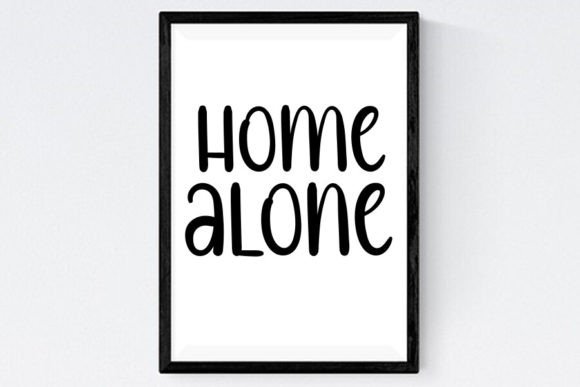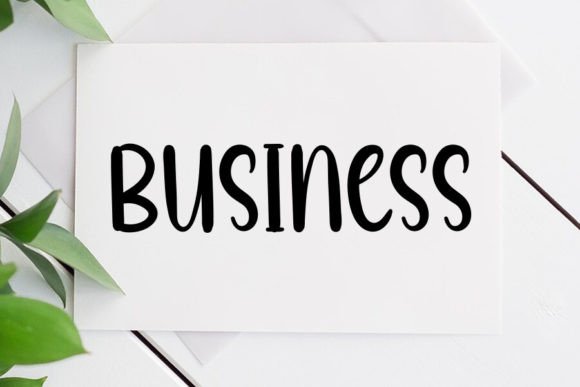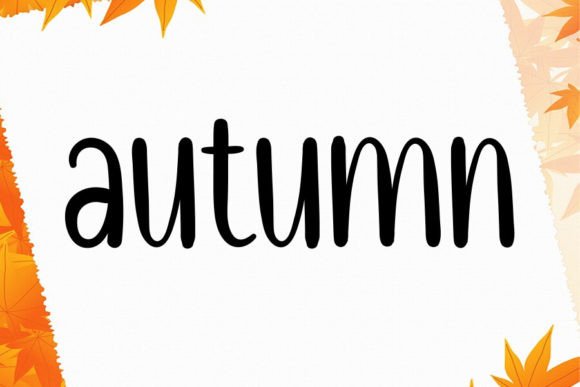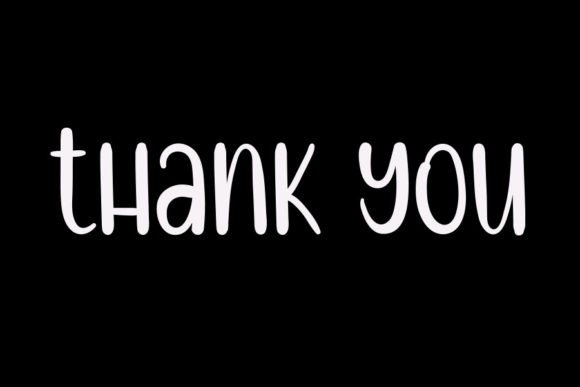
Introducing Angry Birds Font: Elevate Your Designs with Timeless Elegance
Are you tired of using generic fonts that lack personality and sophistication? Look no further than Angry Birds Font, a trendy handwritten font that brings a touch of classic calligraphy to your design projects. With its contemporary atmosphere and impeccable form, Angry Birds Font is the perfect choice for designers and crafters seeking to add elegance and class to their creations.
The Inspiration Behind Angry Birds Font
Angry Birds Font draws inspiration from timeless classic calligraphy, evoking a sense of nostalgia and refinement. The font’s creator aimed to capture the essence of traditional calligraphy, while infusing it with a modern twist. The result is a font that exudes sophistication and poise, making it ideal for a wide range of design applications.
Key Features of Angry Birds Font
- Trendy Handwritten Style: Angry Birds Font boasts a stylish handwritten appearance that adds a personal touch to your designs.
- Contemporary Atmosphere: The font’s modern vibe ensures it stays relevant and fresh, making it perfect for contemporary design projects.
- Impeccable Form: Angry Birds Font features precise and elegant lettering, ensuring that your designs look polished and refined.
- Classic Calligraphy Inspiration: The font’s roots in traditional calligraphy provide a sense of timelessness and sophistication.
Uses for Angry Birds Font
Angry Birds Font is versatile and can be applied to various design projects, including:
- Logos and Branding: Create a lasting impression with a sophisticated logo that showcases your brand’s personality.
- Invitations and Stationery: Add a touch of elegance to your invitations, greeting cards, and stationery.
- Packaging and Product Design: Elevate your product packaging with a refined and eye-catching font.
- Digital and Print Media: Use Angry Birds Font in your digital and print media, such as brochures, flyers, and social media graphics.
Benefits of Using Angry Birds Font
By incorporating Angry Birds Font into your design projects, you’ll enjoy several benefits, including:
- Enhanced Visual Appeal: The font’s elegant appearance will instantly elevate the visual appeal of your designs.
- Improved Brand Perception: A sophisticated font like Angry Birds can contribute to a more professional and polished brand image.
- Increased Versatility: The font’s adaptability ensures it can be used across various design applications.
Tips for Using Angry Birds Font Effectively
To make the most of Angry Birds Font, consider the following tips:
- Pair with Complementary Fonts: Combine Angry Birds Font with other fonts that complement its style to create visual interest.
- Experiment with Colors and Textures: Play with different colors and textures to add depth and dimension to your designs.
- Pay Attention to Kerning and Spacing: Ensure that your text is properly kerned and spaced to maintain the font’s elegance.
Angry Birds Font is a stunning handwritten font that brings a touch of timeless elegance to your design projects. With its trendy style, impeccable form, and classic calligraphy inspiration, it’s the perfect choice for designers and crafters seeking to add sophistication and class to their creations. By incorporating Angry Birds Font into your designs, you’ll elevate your visual appeal, improve brand perception, and increase versatility.